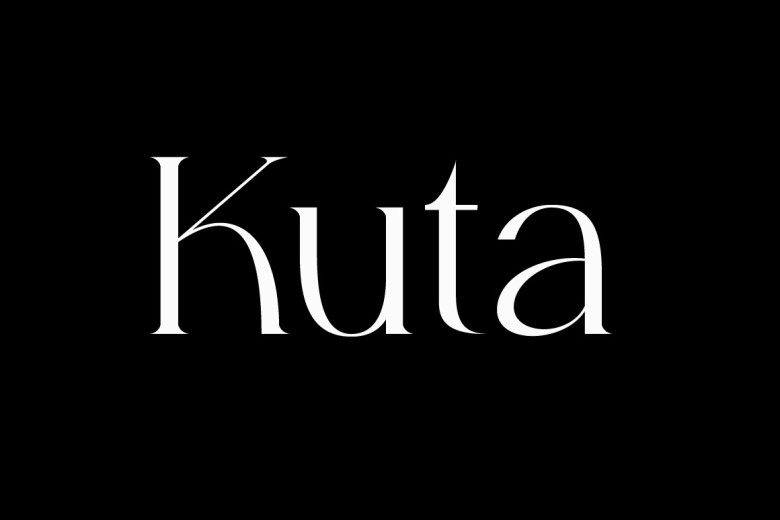
Kuta Font
Kuta is an exclusive and modern serif font with minimal style. This font is perfect for magazine covers, clothing brands, aesthetic furniture and fashion, pretty much anything that needs to feel deluxe and high-end. It pairs beautifully with a minimal sans serif or light script font.
Kuta Serif Font